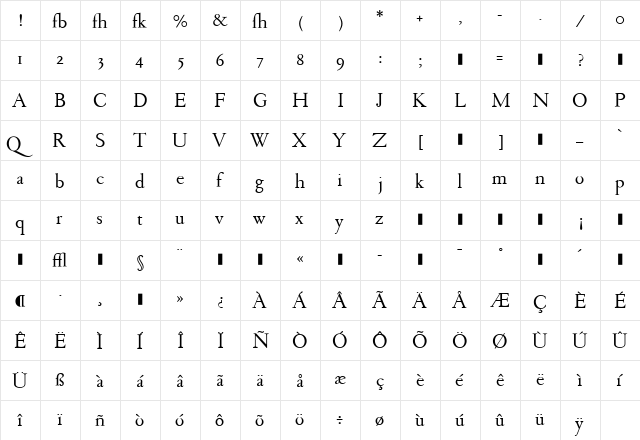
SarabandeAntikva Regular
| Foundry | Jean Jannon . Sarabande font software \ Lars Bergquist |
Design Context for SarabandeAntikva Typeface
SarabandeAntikva takes a measured approach to typography — its balanced proportions and neutral character make it a reliable workhorse for both digital and print work.